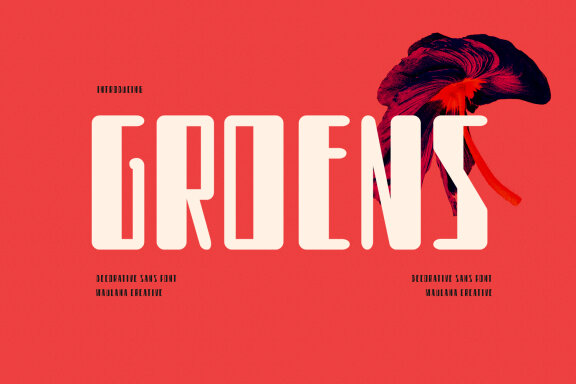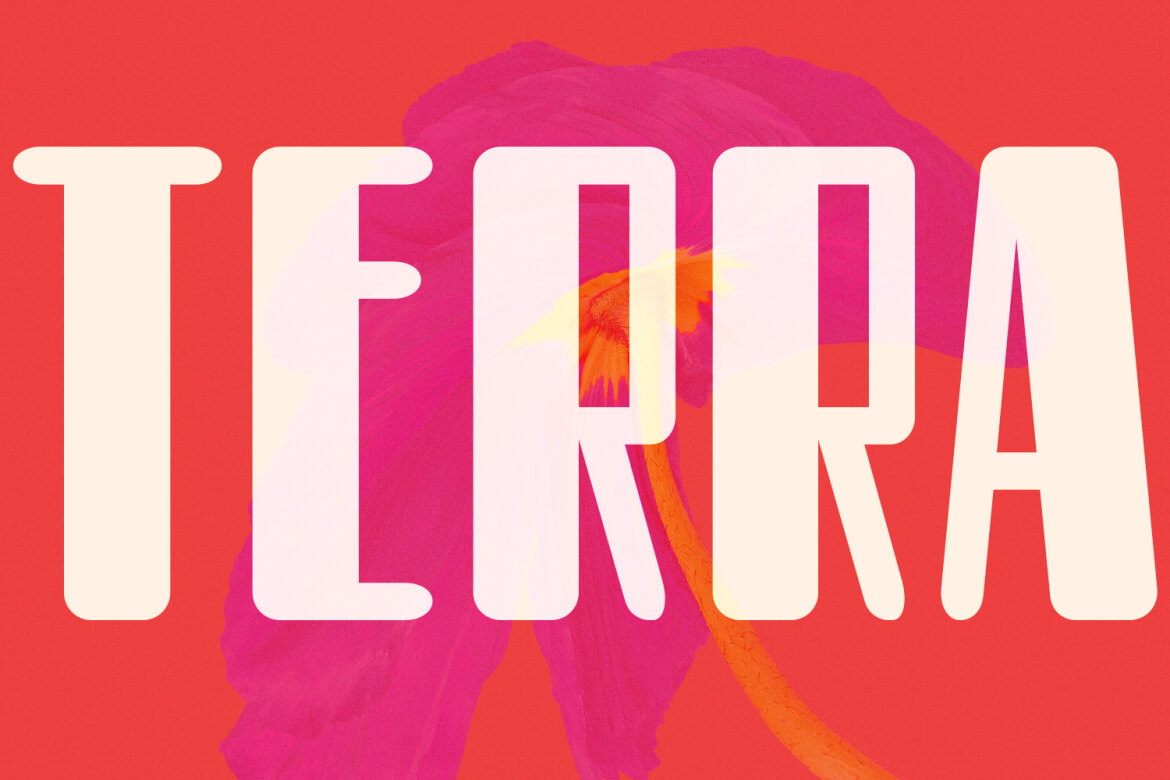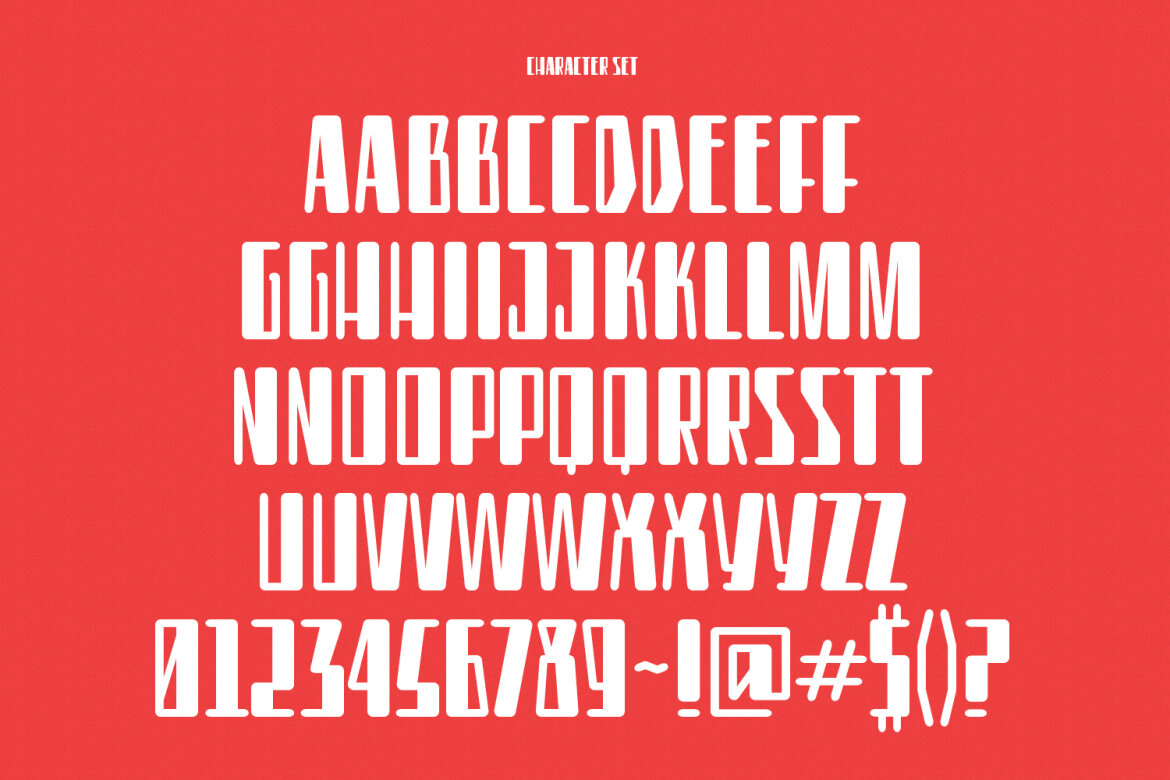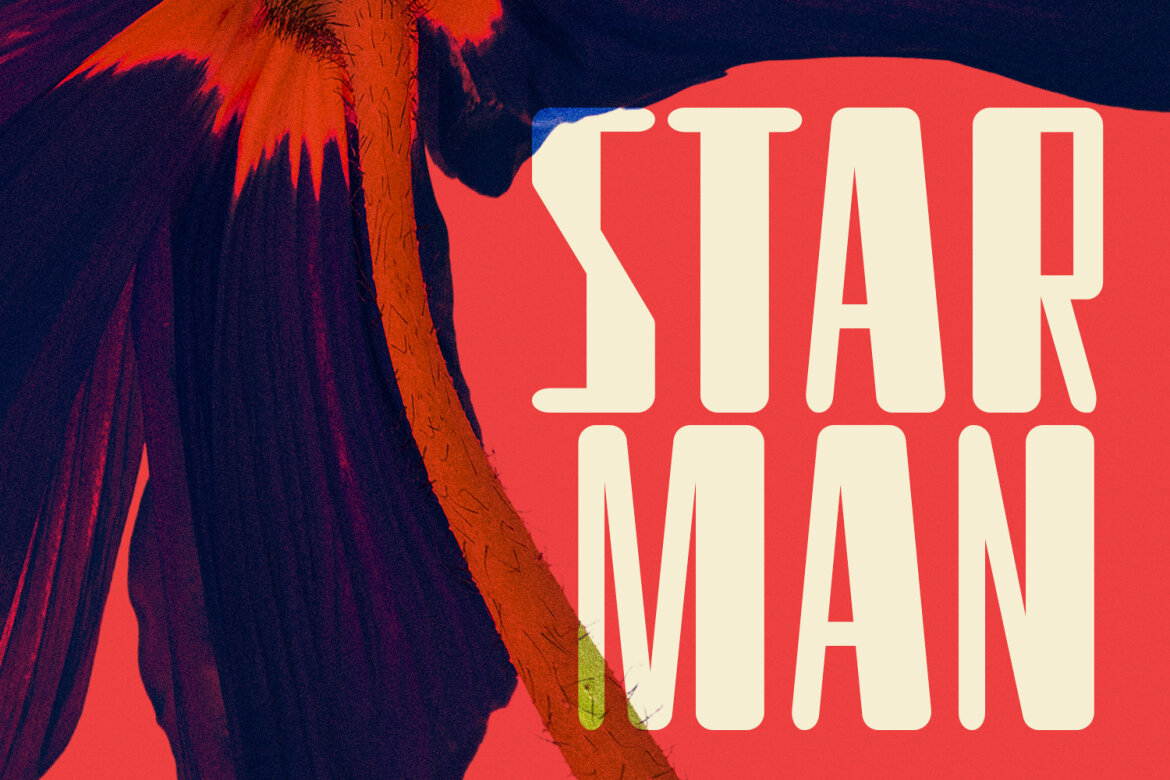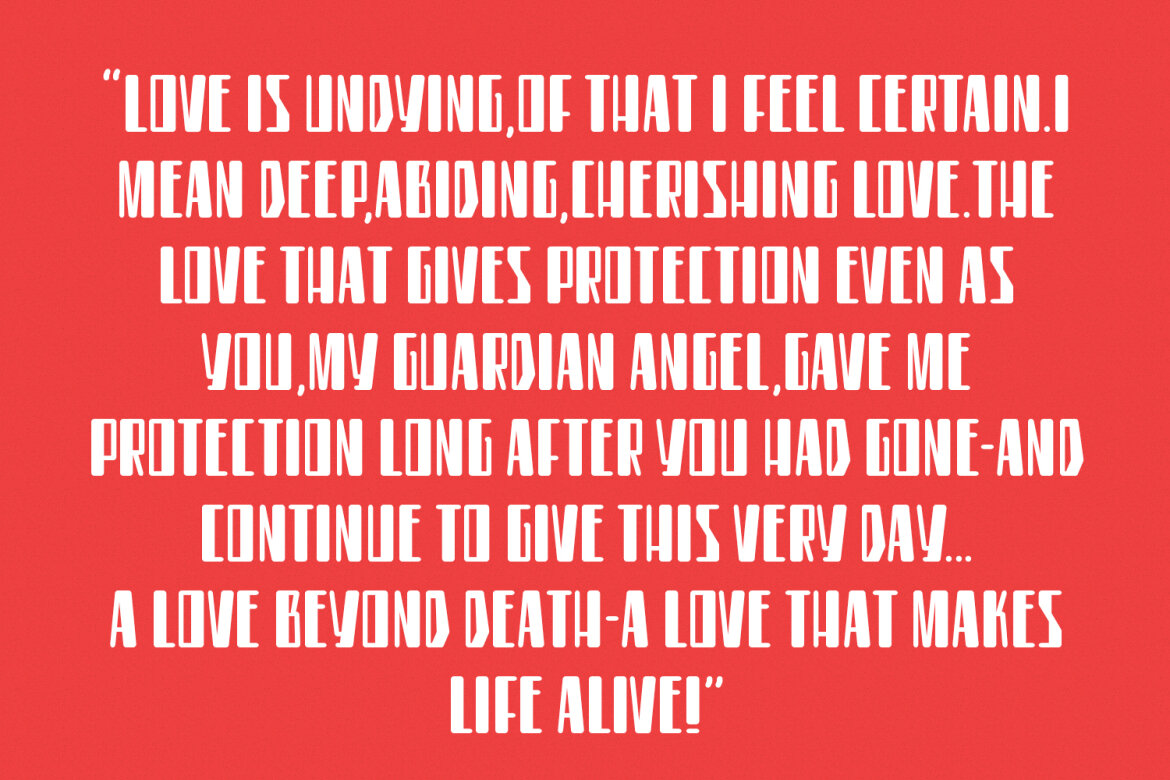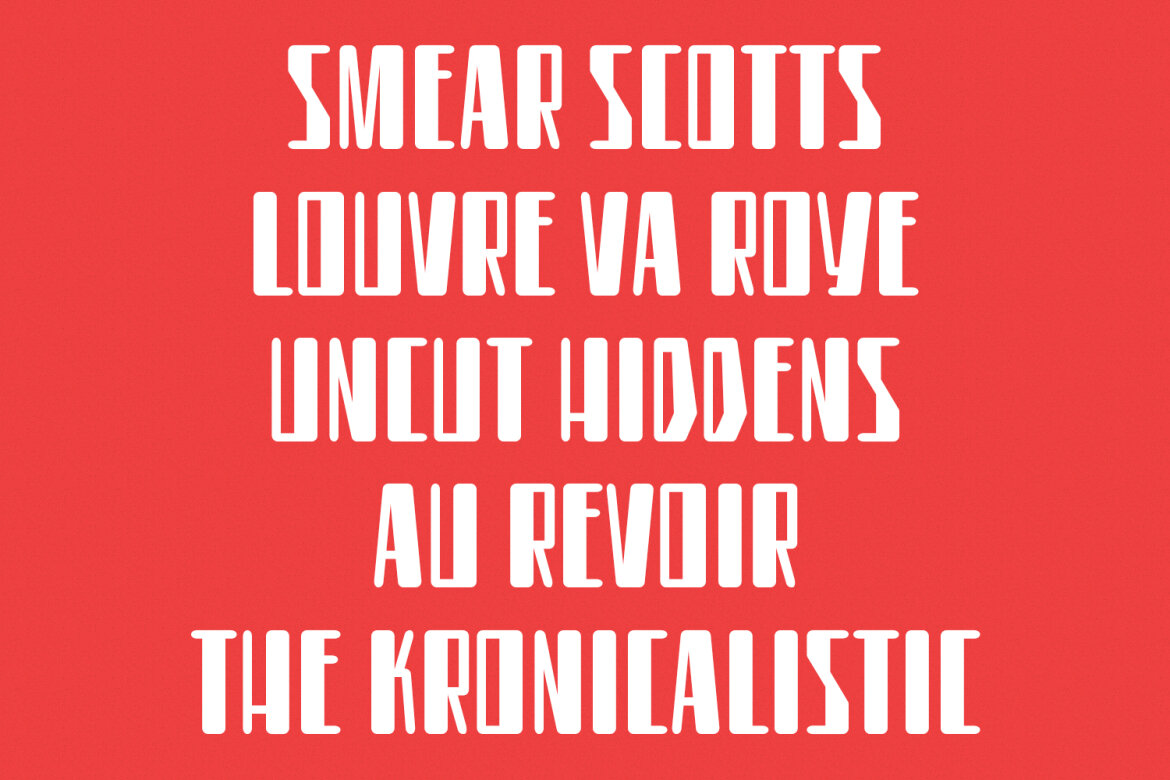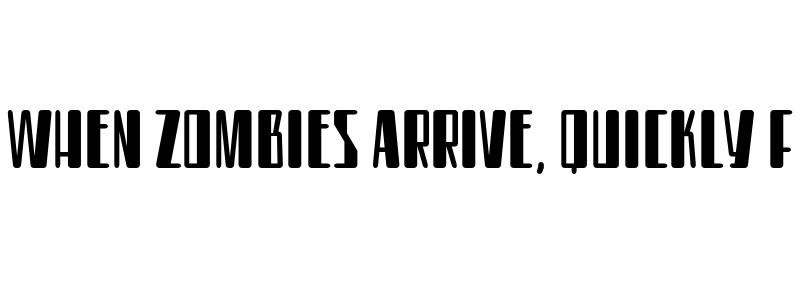
Groens Sans Display FREE Font
Groens
Groens is a High Contrast Decorative sans display font. Regular stroke, fun character with a bit of ligatures and stylistic. To give you an extra creative work. Groens font support multilingual more than 100+ language. This font is good for logo design, Social media, Movie Titles, Books Titles, a short text even a long text letter and good for your secondary text font with script or serif. Make a stunning work with Groens font.